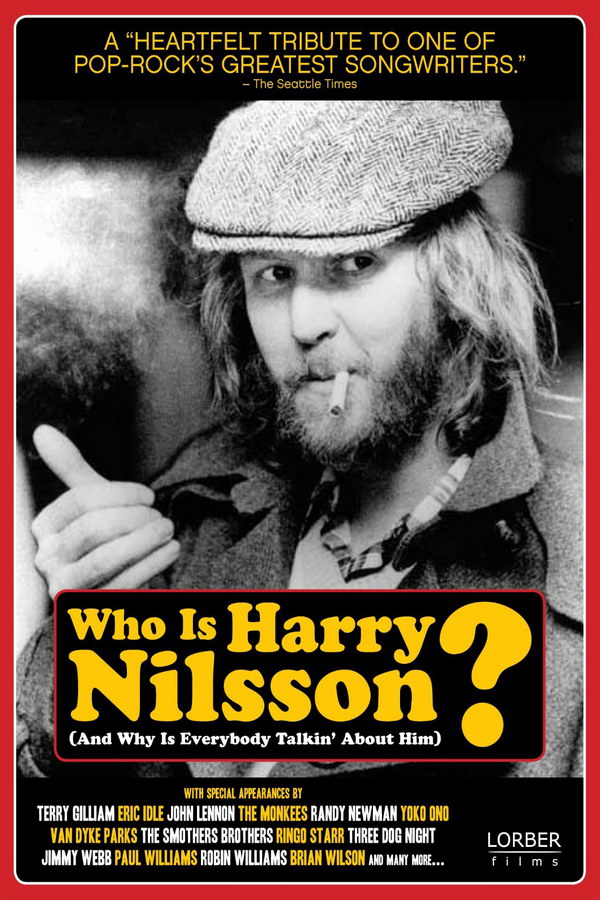
Who is Harry Nilsson Font
BiographyWho is Harry Nilsson is a documentary film about the life and music of the singer-songwriter Harry Nilsson, known for his hits such as "Without You" and "Everybody's Talkin'."